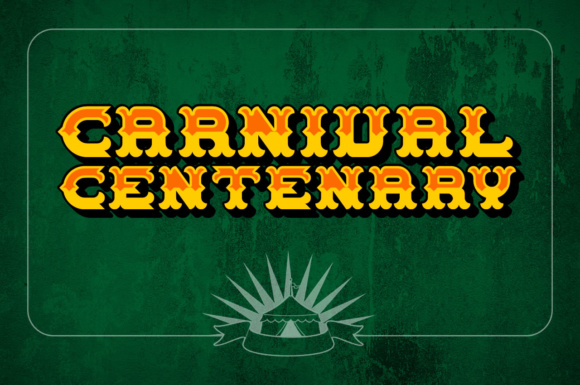
Carnival Centenary Font: A Vintage-Inspired Typeface for Circus and Carnival Posters
The Carnival Centenary Font is a unique and captivating typeface that embodies the spirit of old-time fairground rides and attractions. Designed to evoke the nostalgia and excitement of the circus and carnival, this font is perfect for creating eye-catching posters, flyers, and other promotional materials that require a touch of vintage flair.
The Inspiration Behind Carnival Centenary Font
The Carnival Centenary Font draws inspiration from the classic signage and typography of traditional fairgrounds and carnivals. The font’s design is rooted in the ornate and playful lettering styles that were commonly used on vintage carnival posters, banners, and ride signs. By combining bold lines, curvaceous shapes, and a hint of whimsy, the Carnival Centenary Font successfully captures the essence of a bygone era.
Key Features of the Carnival Centenary Font
- Unique lettering style: The Carnival Centenary Font boasts a distinctive lettering style that is reminiscent of vintage carnival signs. Each letter is carefully crafted to evoke a sense of nostalgia and playfulness.
- Bold and curvaceous design: The font features bold lines and curvaceous shapes, which give it a dynamic and eye-catching appearance.
- Whimsical flourishes: The Carnival Centenary Font includes a range of whimsical flourishes and swashes that can be used to add a touch of personality to your designs.
- Highly legible: Despite its ornate design, the Carnival Centenary Font is highly legible, making it perfect for use on posters, flyers, and other promotional materials.
Using the Carnival Centenary Font for Circus and Carnival Posters
The Carnival Centenary Font is specifically designed for use on circus and carnival posters, flyers, and other promotional materials. Its unique lettering style and bold design make it perfect for grabbing the attention of potential customers and evoking a sense of excitement and nostalgia.
Tips for Using the Carnival Centenary Font
- Use bold colors: The Carnival Centenary Font looks best when paired with bold, bright colors that evoke the excitement and spectacle of the circus and carnival.
- Experiment with flourishes: The font’s whimsical flourishes and swashes can be used to add a touch of personality to your designs. Experiment with different combinations to find the one that works best for your poster.
- Keep it simple: While the Carnival Centenary Font is ornate and eye-catching, it’s essential to keep your poster design simple and easy to read. Avoid cluttering your design with too much text or imagery.
The Benefits of Using the Carnival Centenary Font
The Carnival Centenary Font offers a range of benefits for designers and marketers looking to create eye-catching circus and carnival posters. Some of the key benefits include:
Benefits of the Carnival Centenary Font
- Instant recognition: The Carnival Centenary Font is instantly recognizable as a vintage-inspired typeface, which can help to evoke a sense of nostalgia and excitement in your target audience.
- Unique design: The font’s unique lettering style and bold design make it stand out from more traditional typefaces, ensuring that your poster grabs the attention of potential customers.
- Flexibility: The Carnival Centenary Font can be used on a range of promotional materials, from posters and flyers to social media graphics and website headers.
The Carnival Centenary Font is a captivating and unique typeface that is perfect for creating eye-catching circus and carnival posters. With its bold lines, curvaceous shapes, and whimsical flourishes, this font is sure to evoke a sense of nostalgia and excitement in your target audience. Whether you’re a designer, marketer, or simply someone looking to create a vintage-inspired poster, the Carnival Centenary Font is an excellent choice.
Get Creative with the Carnival Centenary Font
So why not get creative with the Carnival Centenary Font and see what amazing designs you can come up with? With its flexibility, unique design, and instant recognition, this font is sure to be a hit with designers and marketers alike.